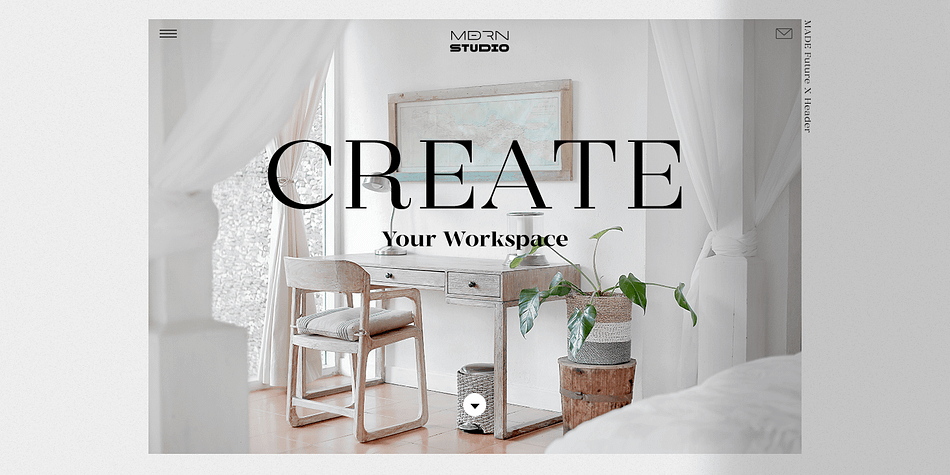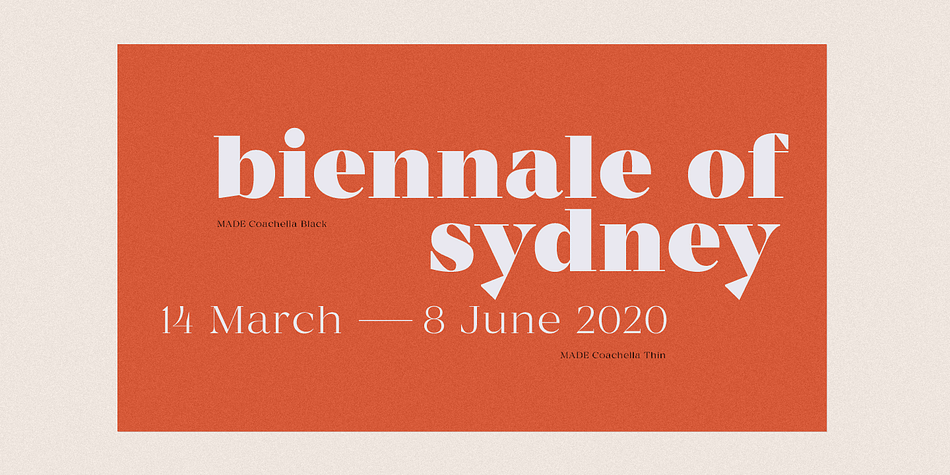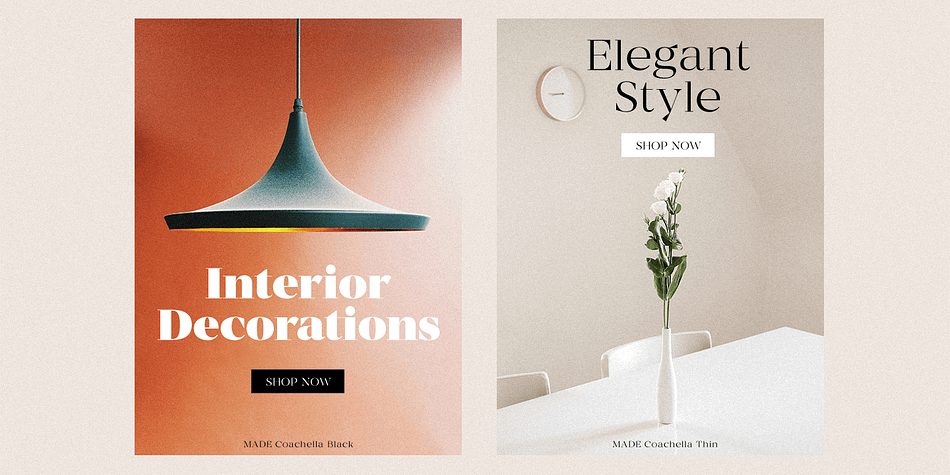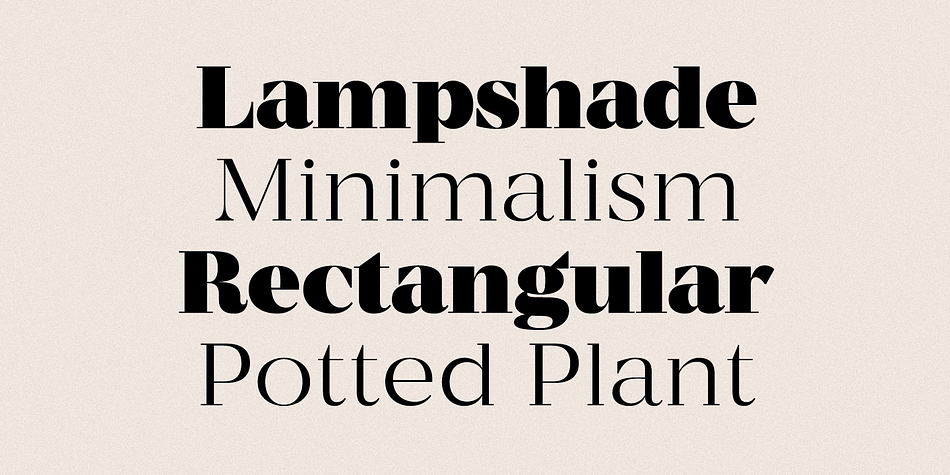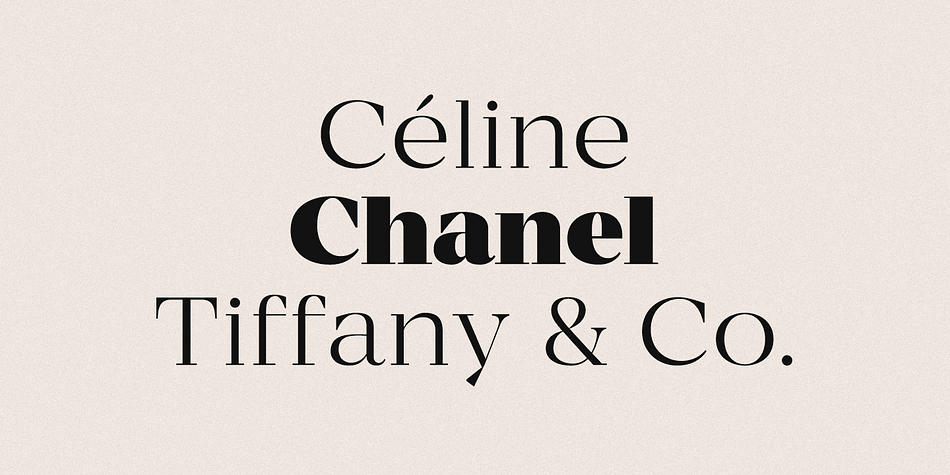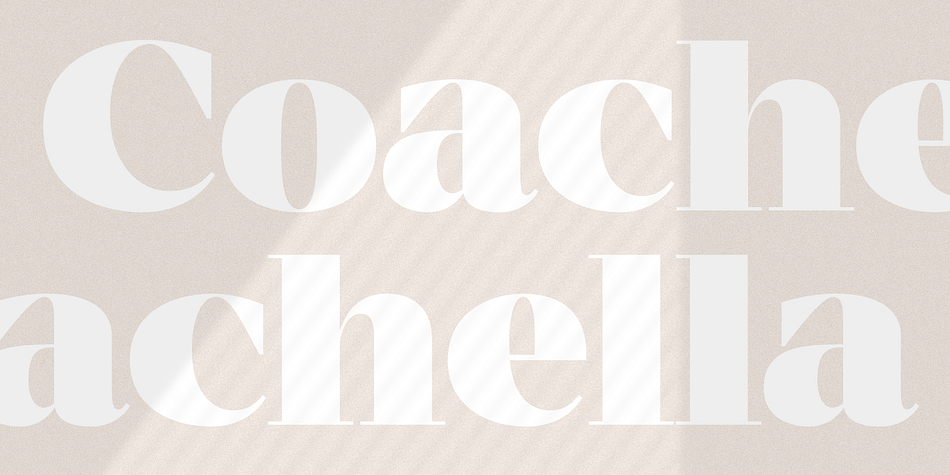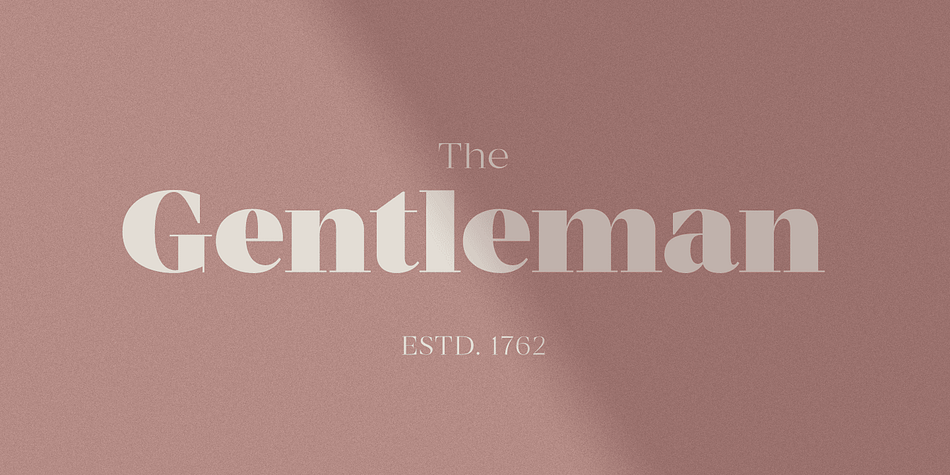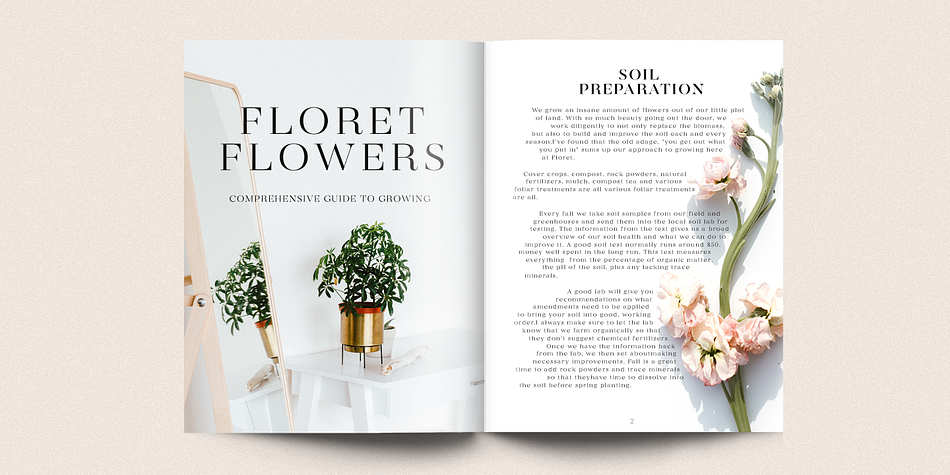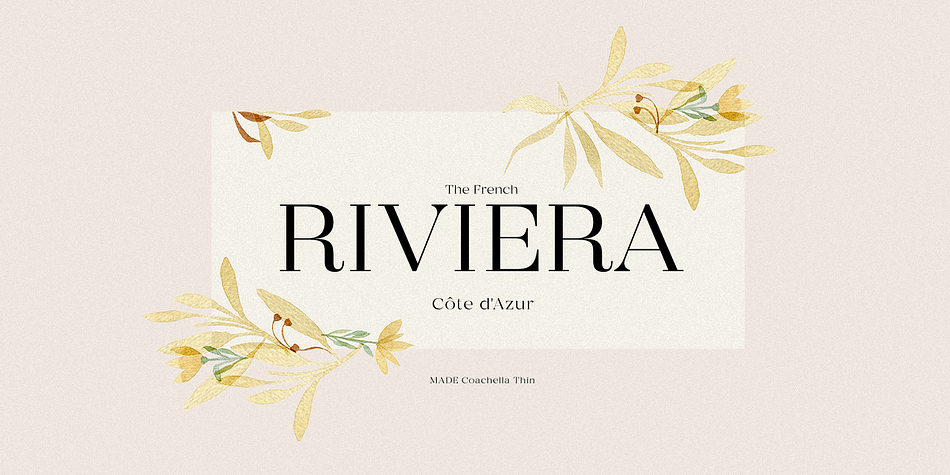
Designed by Maxim Schepin and Denis Schepin, MADE Coachella is a serif font family. This typeface has six styles and was published by MadeType.
MADE Coachella is a contrasting serif font family.
The Coachella serif font family will perfect for many project: fashion, wedding invitations, book, magazines, logo, branding, photography, invitations, quotes, blog header, poster, advertisements, etc.